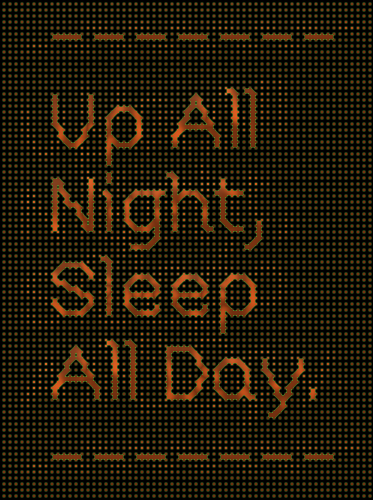
fs Sleep All Day
by thalamic
` has a one column dot grid ~ has a two column dot grid
You sly dog. Yet another way to suggest curves that aren't really there. No wonder you were up all night.
Fontstruct. Tantalus. Sisyphus. Pick your metaphor of torture.
Congratulations! FontStruct Staff have deemed your FontStruction worthy of special mention. “Sleep All Day” is now a Top Pick.
Good stuff. Love the samples.
la biche
!!!